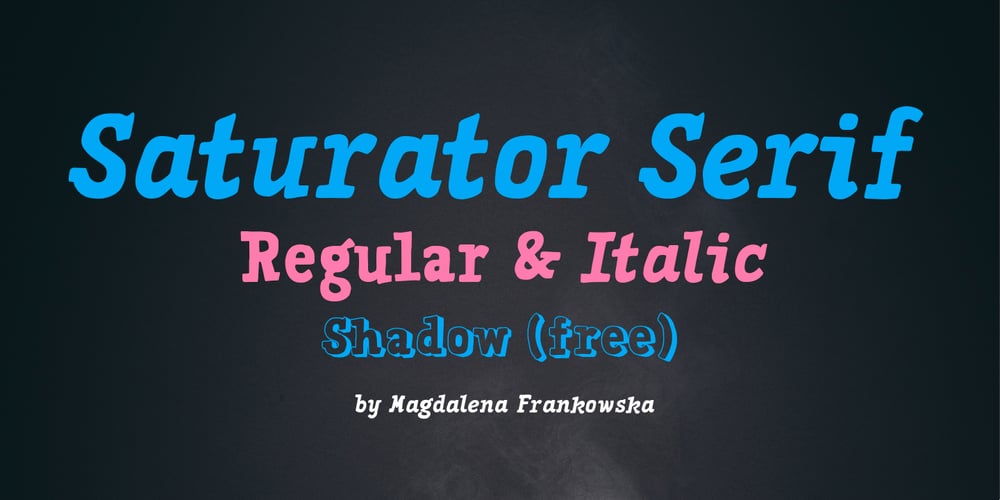
Saturator Serif FA Font Family was designed by Magdalena Frankowska and published by Fontarte. Saturator Serif FA contains 3 styles and family package options. Saturator Serif FA is a younger brother of Saturator FA. It comes with upper and lower case letters and with diacritic characters for many Latin languages. Its informal and cheerful character allows for different creative ways of usage. This slab serif typeface is designed to accompany sans serif version. It has three variants: Regular, Italic and Shadow.